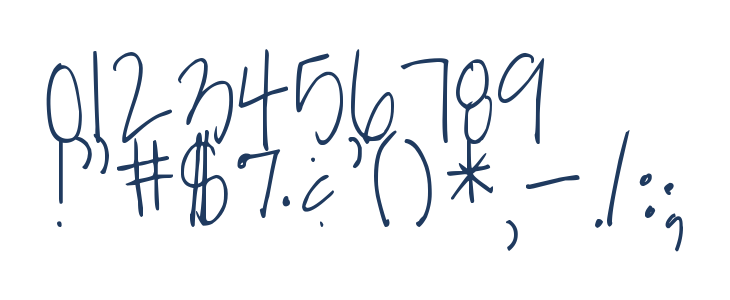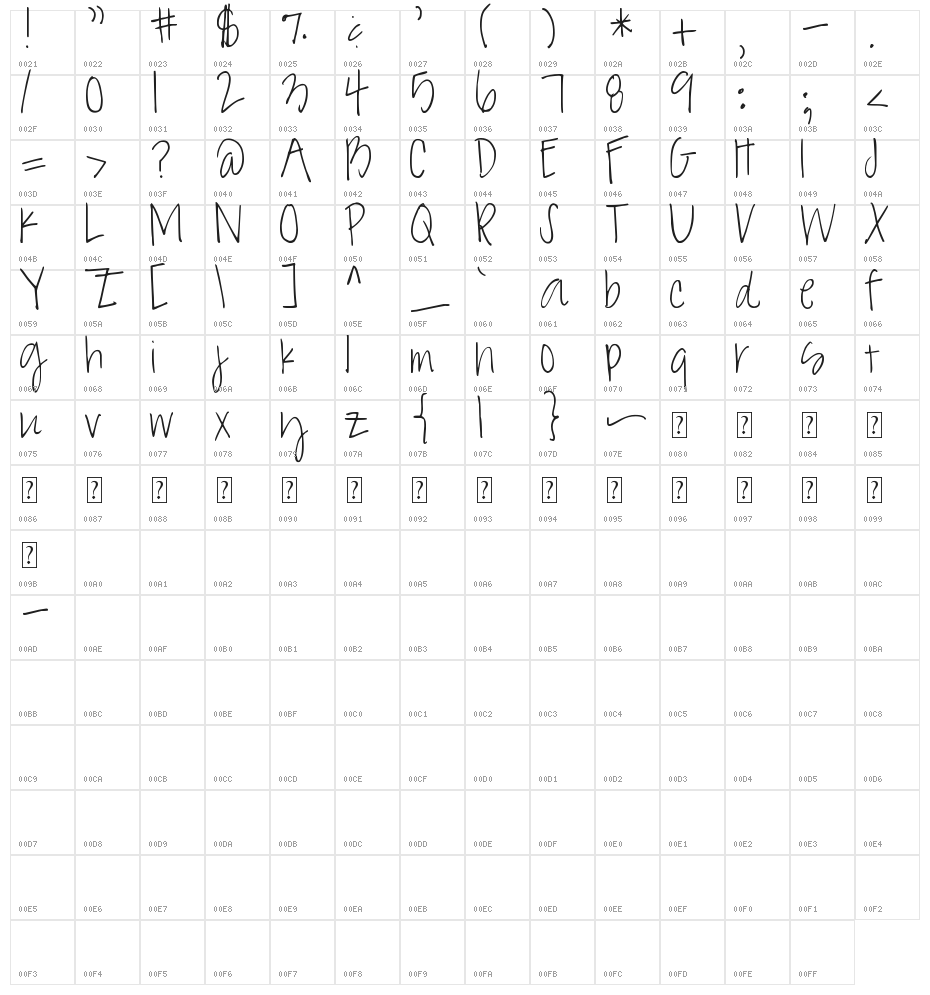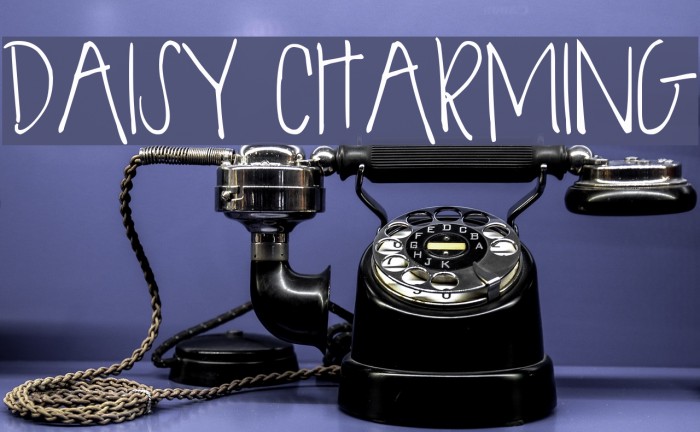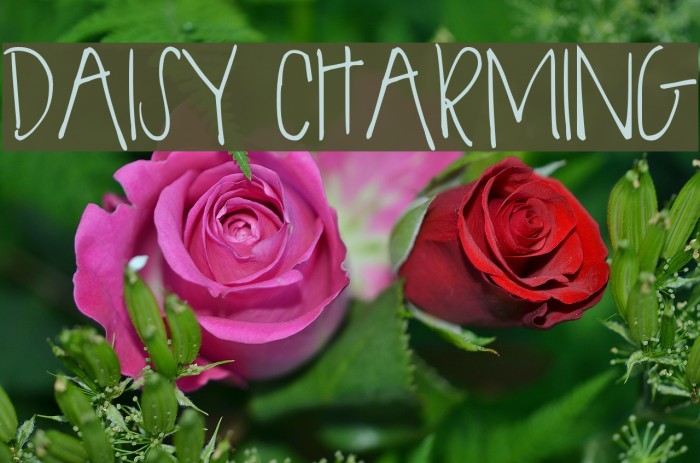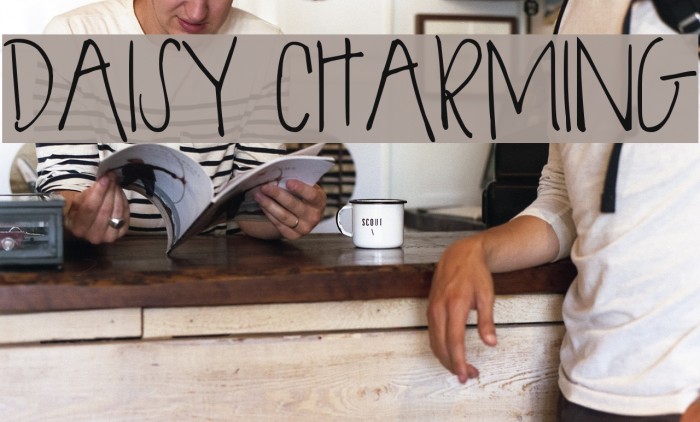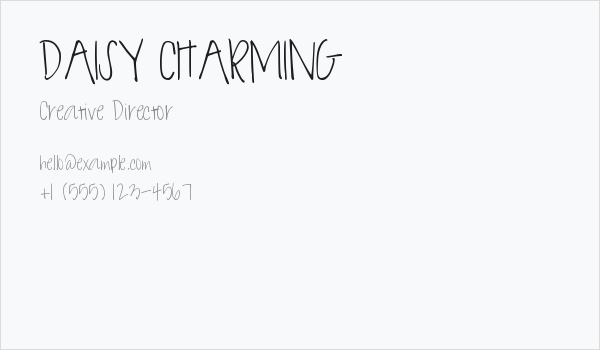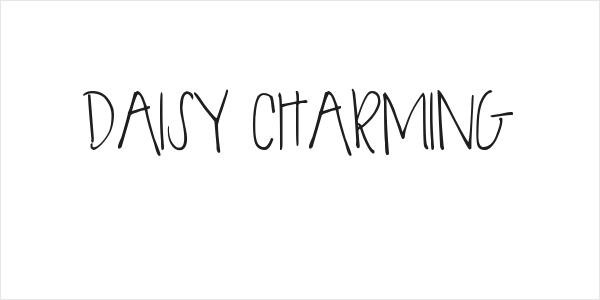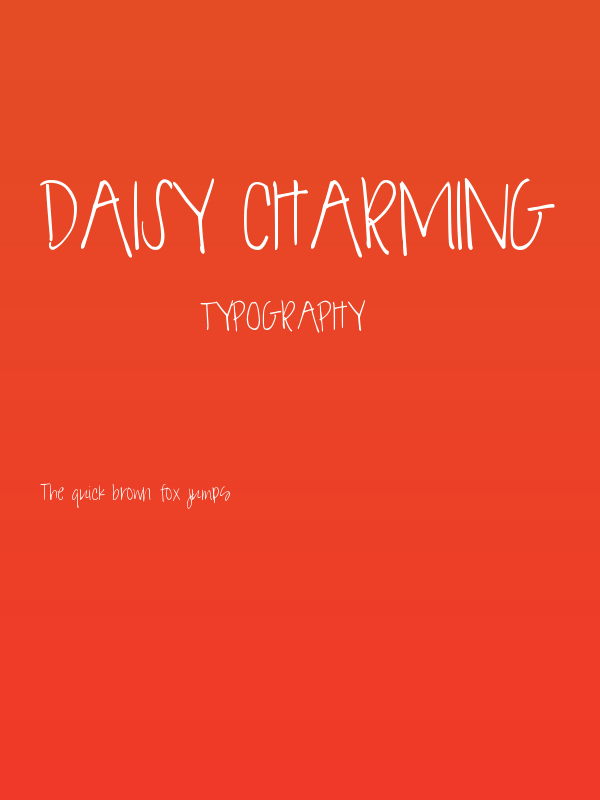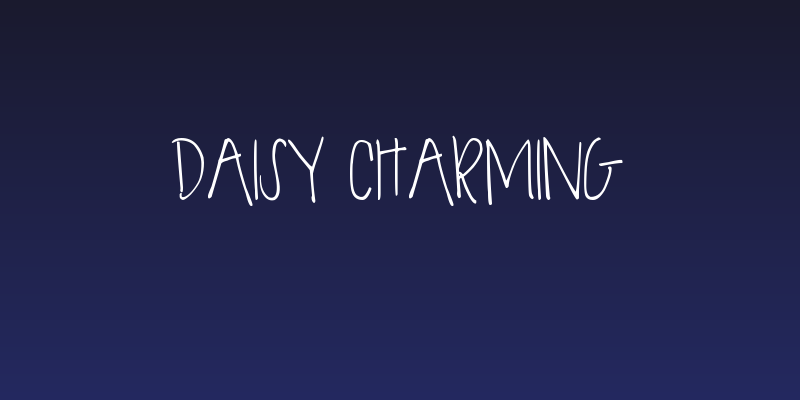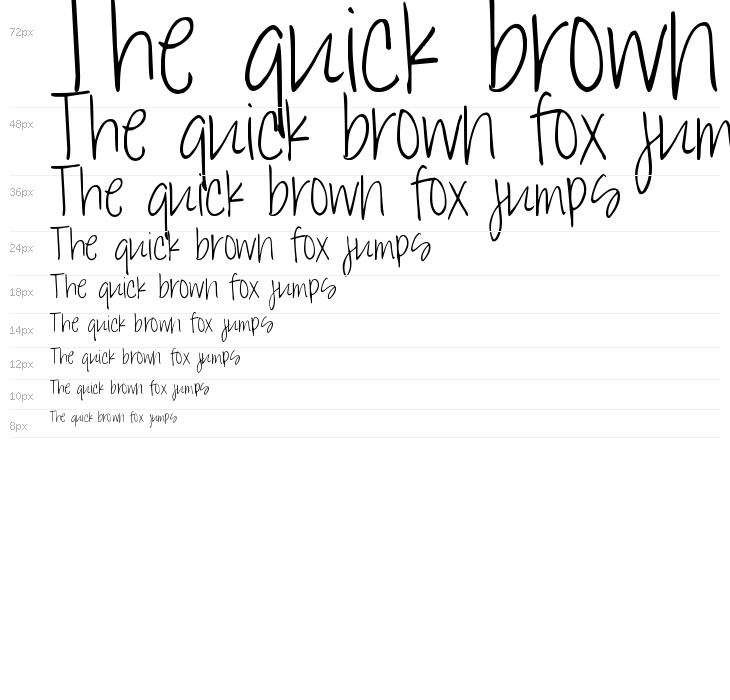
DAISY CHARMING Font
DAISY CHARMING Description
This font exudes a playful and whimsical charm, characterized by its handwritten style. The letters are tall and slender, with a slight slant that adds a dynamic feel. The strokes are consistent in width, giving it a clean and uniform appearance. The uppercase letters are bold and prominent, while the lowercase letters maintain a casual, flowing look. Numbers and special characters are crafted with the same playful touch, ensuring a cohesive style throughout. This font is perfect for projects that require a personal, friendly touch, such as greeting cards, invitations, or playful branding materials.